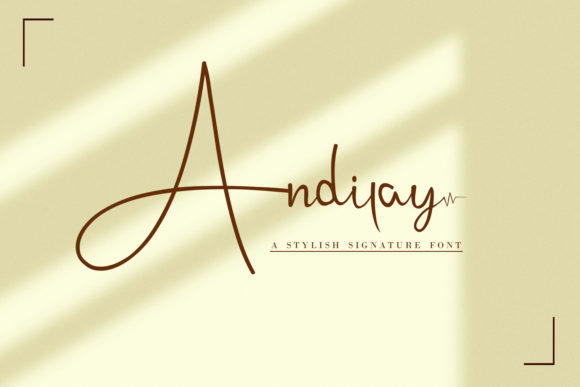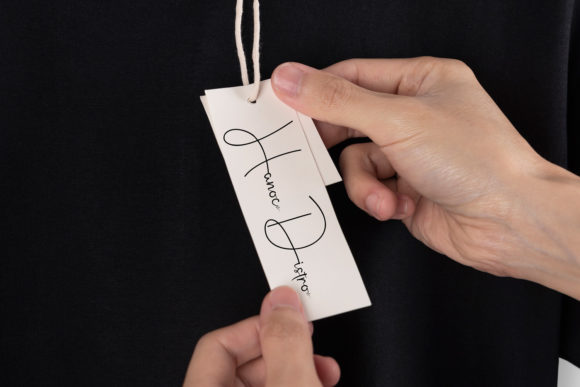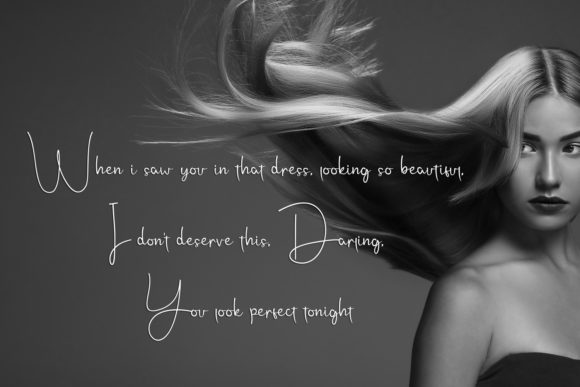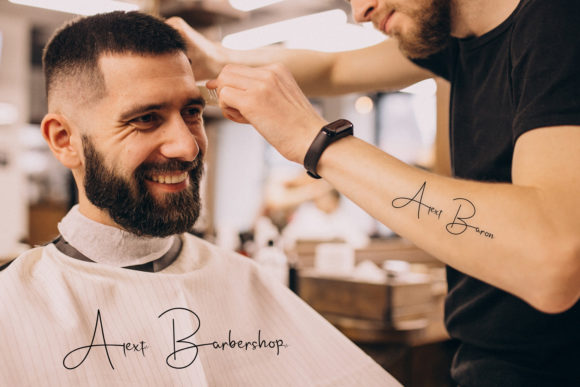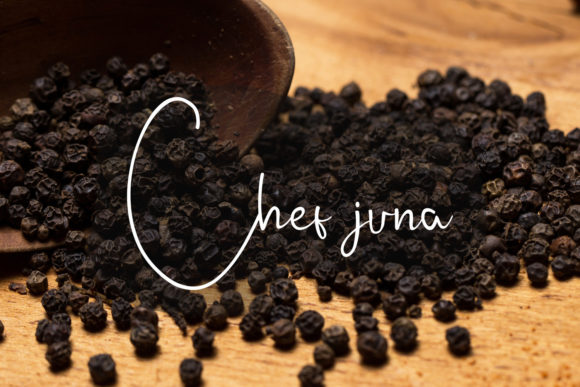
About Andilay Font
Andilay is a lovely and timeless handwritten font. It is the best choice for creating eye catching logos, branding and quotes. This font is PUA encoded which means you can access all of the glyphs and swashes with ease!